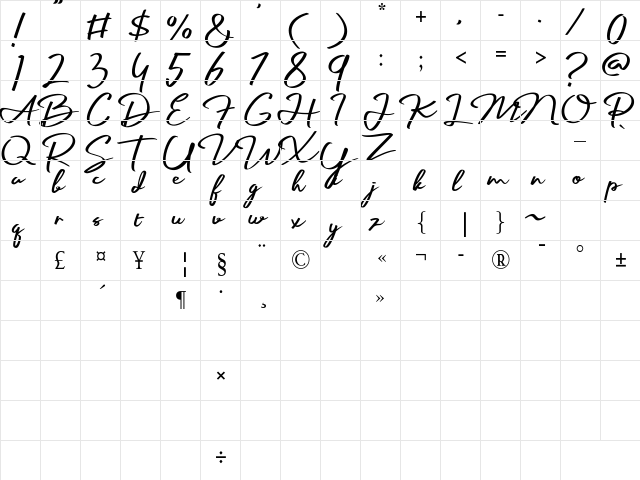
Palmark Regular
Design Context for Palmark Typeface
Palmark takes a measured approach to typography — its balanced proportions and neutral character make it a reliable workhorse for both digital and print work.